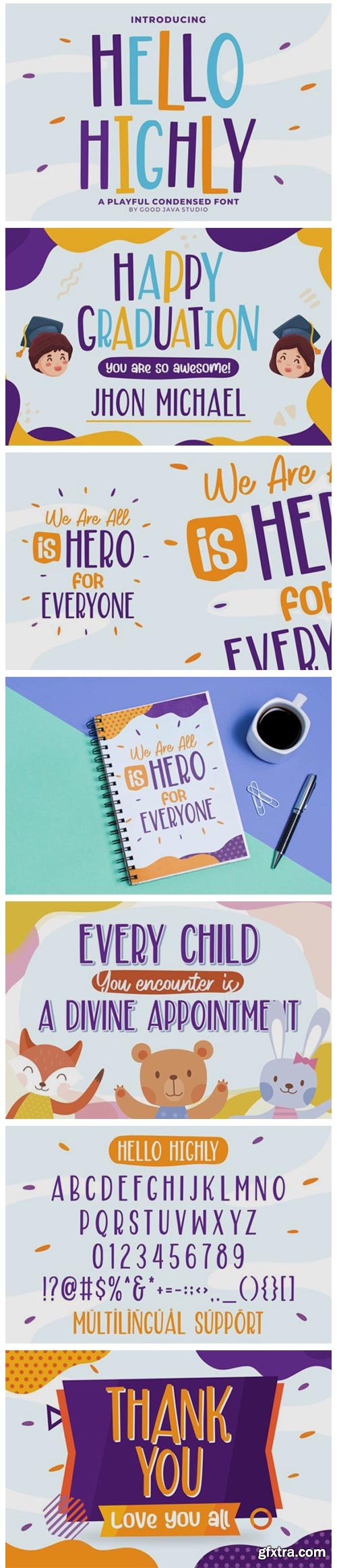
Hello Highly Font
Hello Highly is a neat and colorful display font. Its friendly feel makes this font incredibly versatile, fitting a wide range of contexts. Add it to your creative ideas and notice how it makes them stand out!